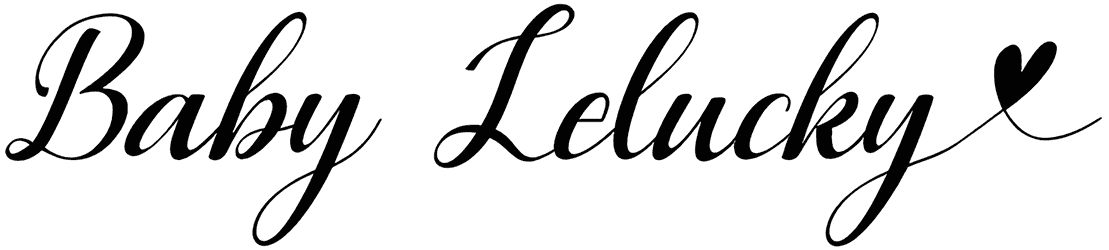
Baby Lelucky Font
Planning on designing one typography that has a lovely handwriting display?! You will adore Baby Lelucky! It’s a modern luxury script font, conveying a natural hand-drawn feel. This calligraphy font offers delicate characters that are neat and give your typography a friendly, fun, and cute look.
Baby Lelucky includes a full set of skillful letterforms that will help you accomplish your favorable design. Wedding cards, invitations, birthdays, makeup products, and branding are places to give this one-of-a-kind, gorgeous font a try!